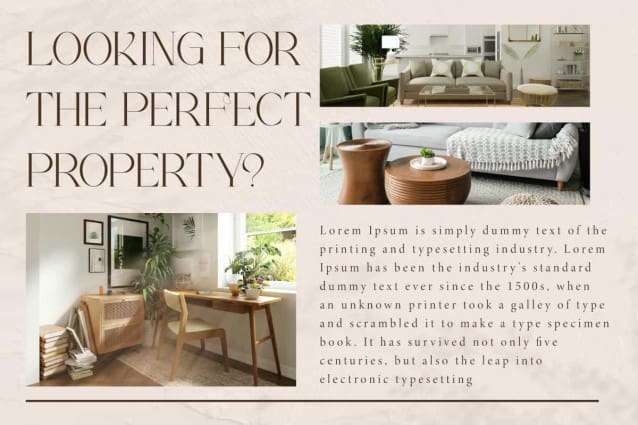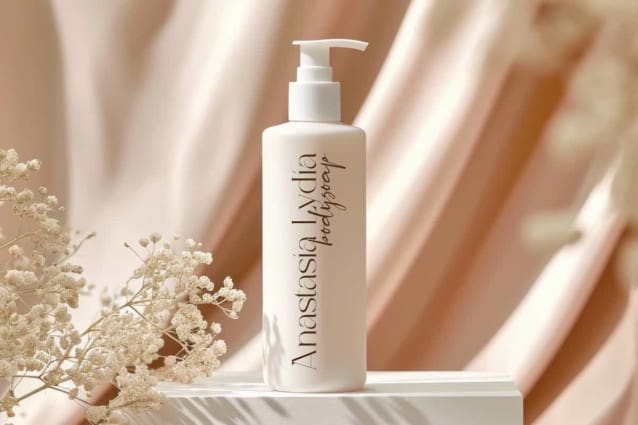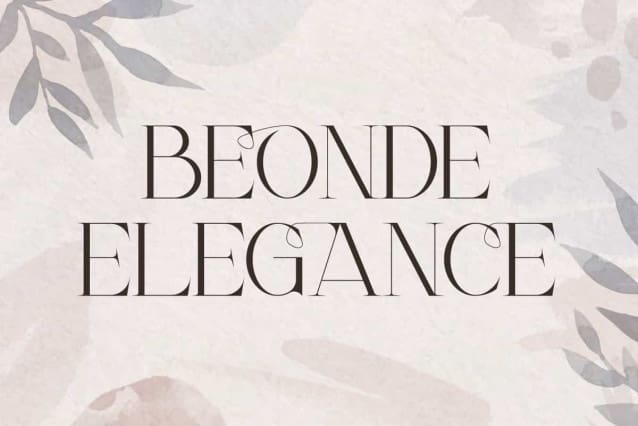
Beonde Elegance Font
Beonde Elegance Font is a deluxe serif display font, inspired by elegant typography. This stunning font will be perfect for any projects, it can be used for advertising, blog, brand image, custom design, invitation, label, layout design, logo, quotes, stationery, template design, website, and more!
Beonde Elegance Font includes full set of Uppercase and Lowercase Basic Characters, Numerals, Punctuation, and Symbol. This font has Ligature characters that it looks awesome. It’s perfect for accessories and jewelry, beauty product, event or wedding organizer, fashion, florist, furniture, real estate, spa salon, etc.